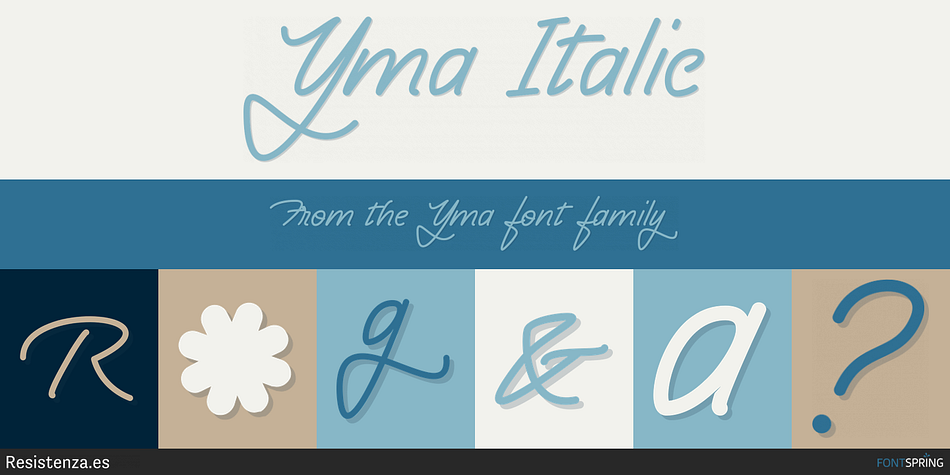
Yma is a script font family. This typeface has three styles and was published by Resistenza.es.
Yma Italic
Yma is inspired by 80’s neonlight with an hand-written - brushpen style.
Elegant & dynamic with a vintage look. There are also some interesting alternates glyphs.